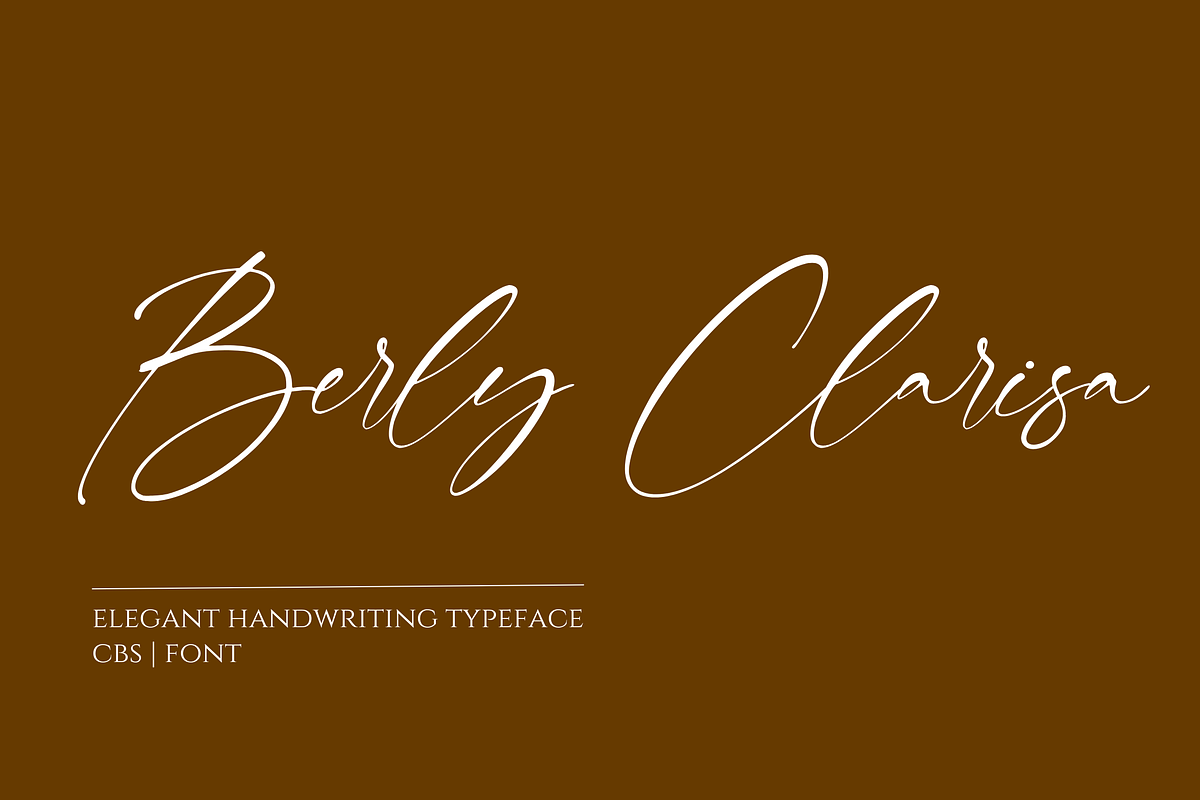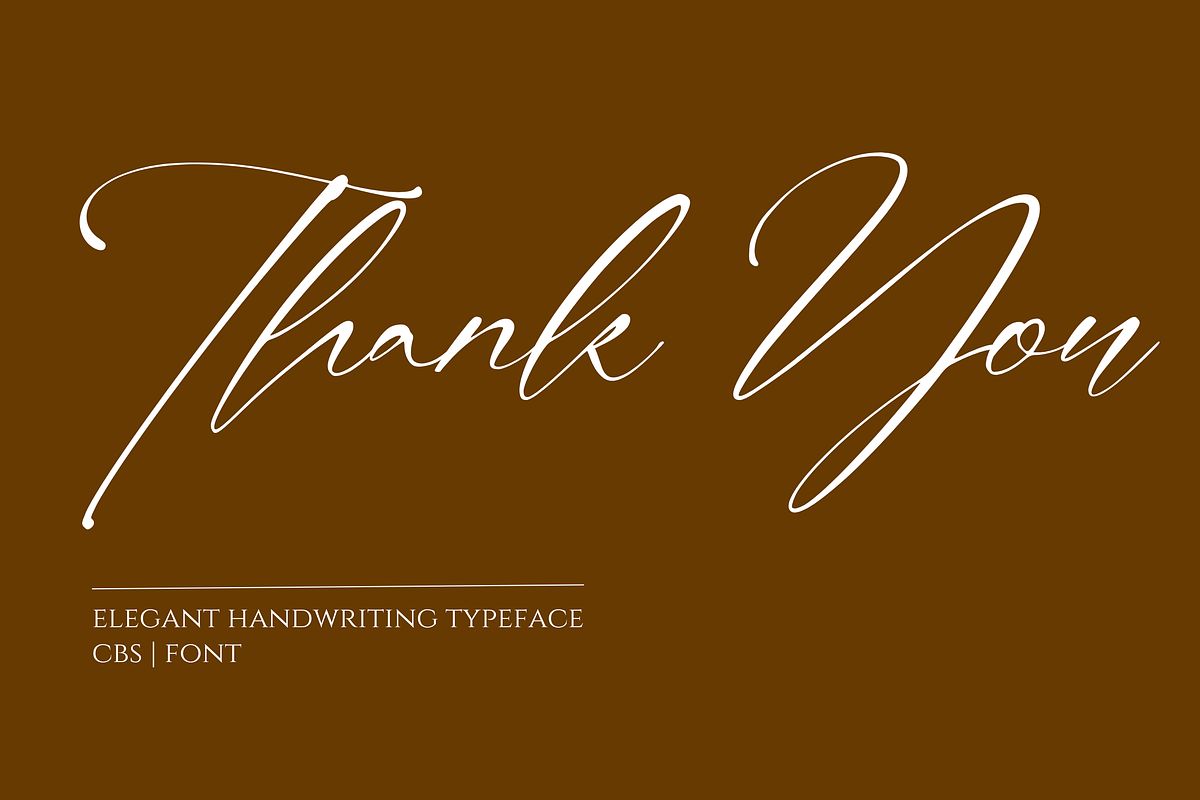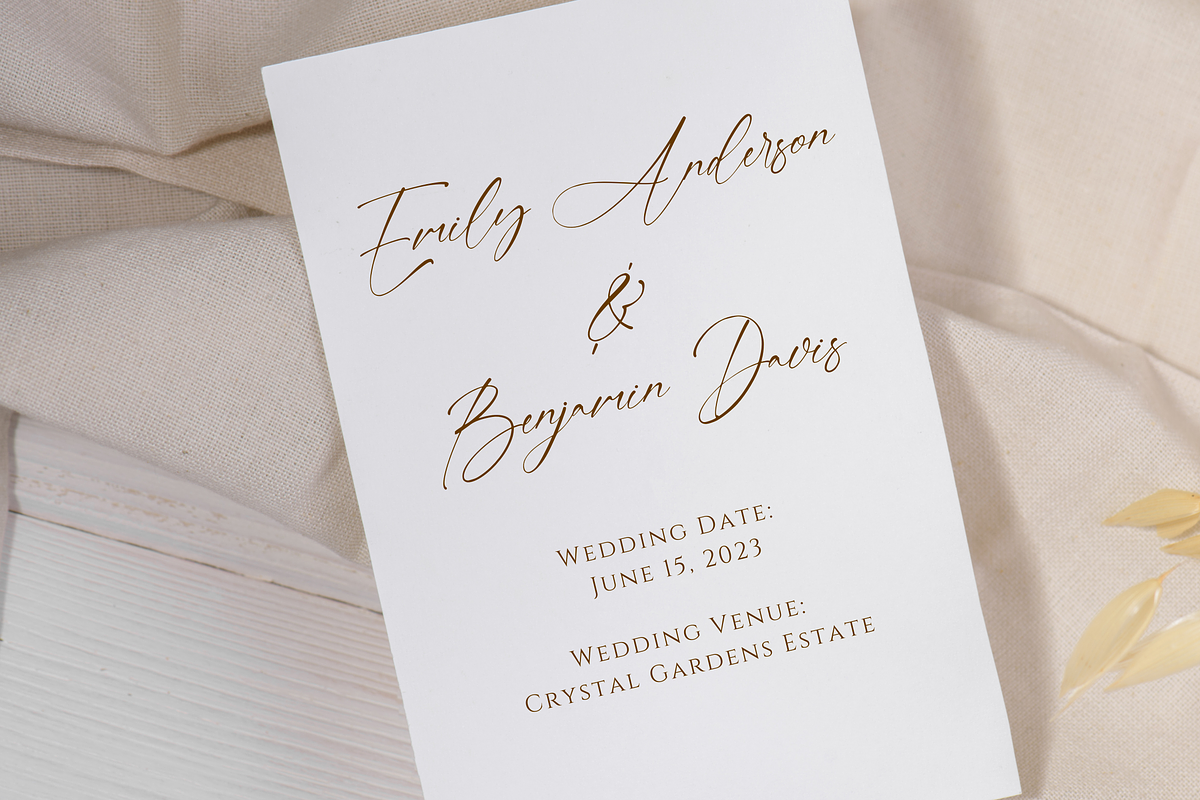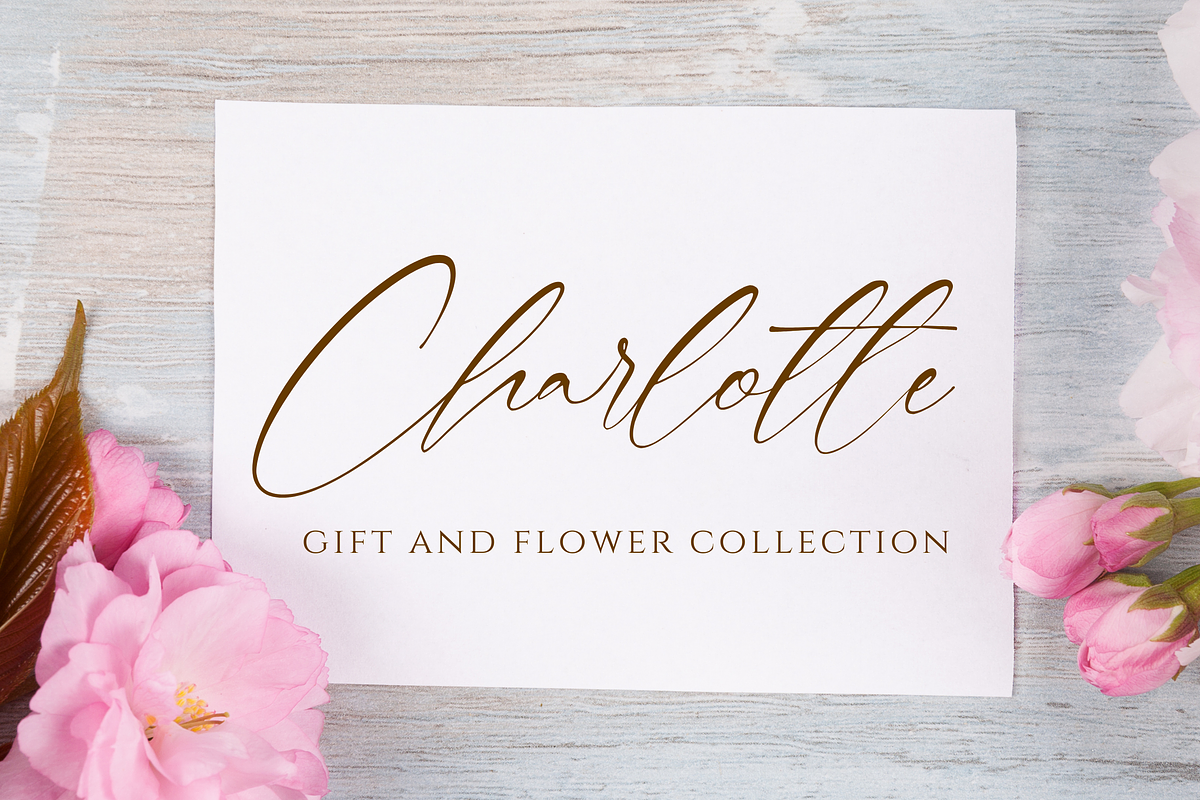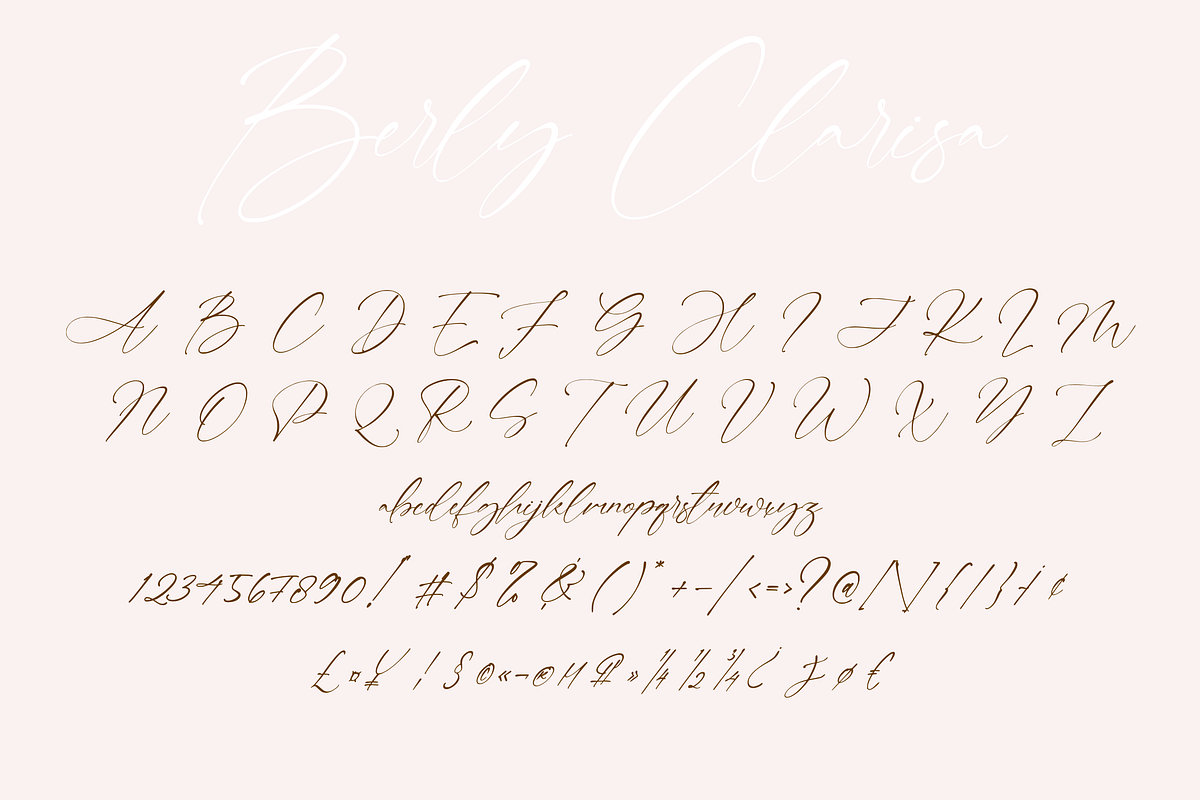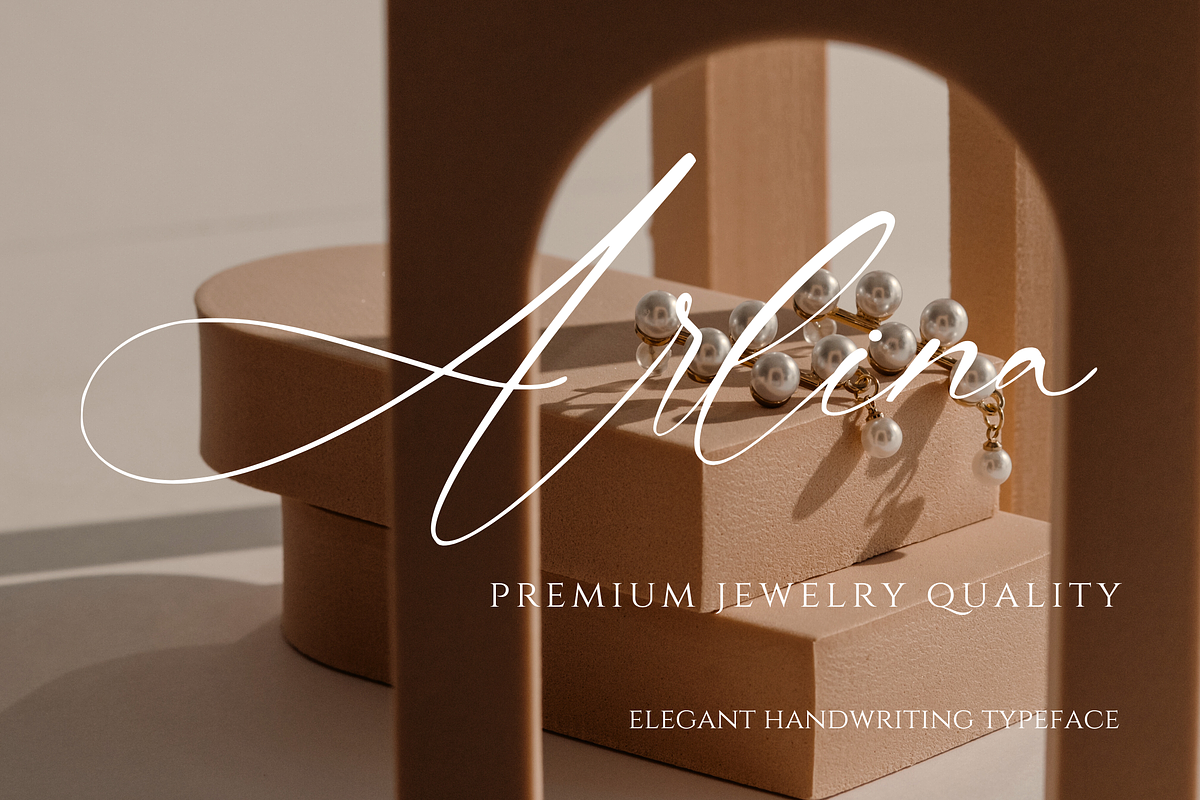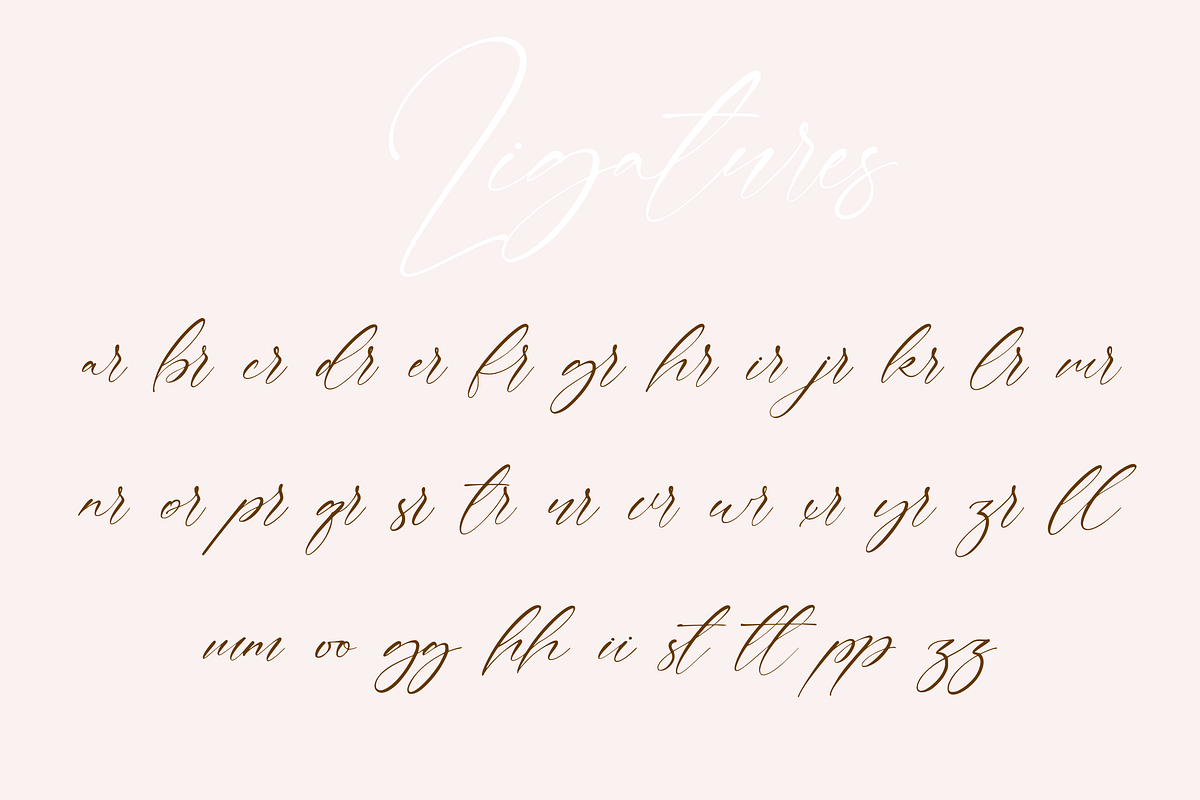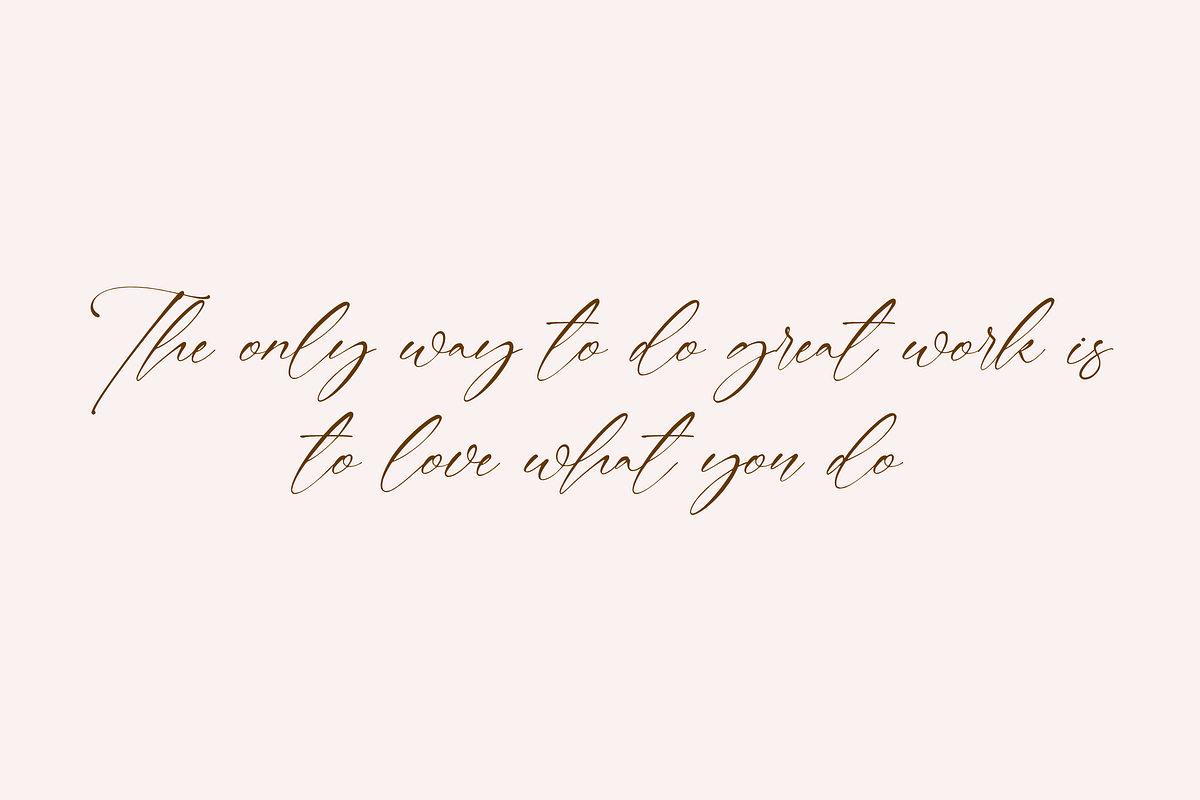
Berly Clarisa Signature Handwriting
Elevate your design projects with Berly Clarisa, a modern signature handwriting font. This versatile font features a perfect balance of uppercase and lowercase letters, along with numbers, punctuations, and multilingual support. With PUA encoding, Berly Clarisa offers seamless compatibility across various design software. Add a touch of elegance and personality to your branding, logos, invitations, and more with the unique style of Berly Clarisa. Unlock your creativity and make a statement with this exceptional font.